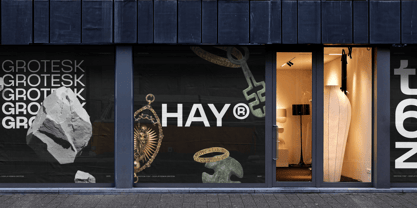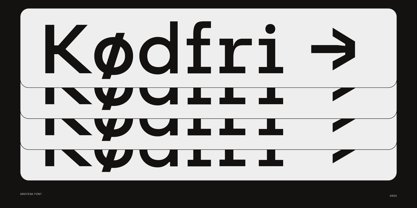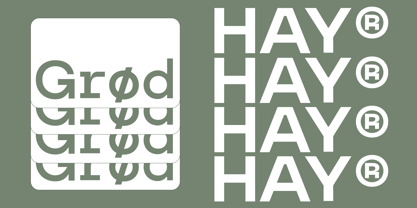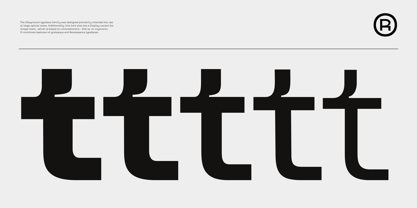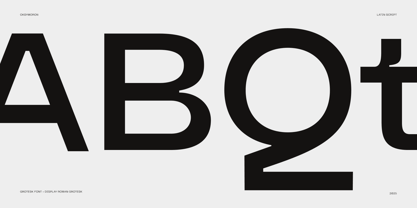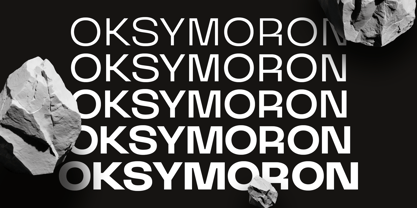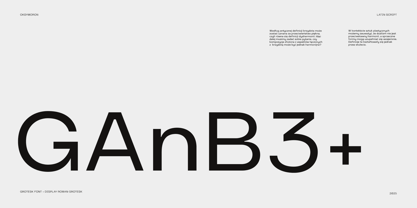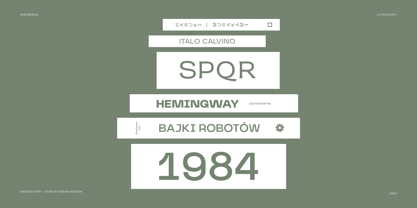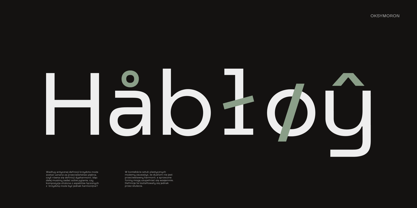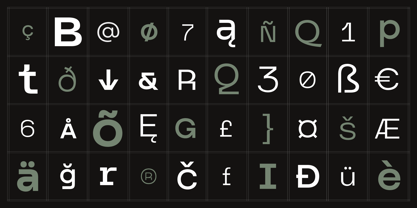
Oksymoron Grotesk
by Iwa Wolska
The Oksymoron Grotesk Font Family was designed by Iwa Wolska and published by Iwa Wolska. Oksymoron Grotesk contains 6 styles and family package options. More about this family
The Oksymoron typeface family was designed as a font with a distinctive and memorable character, primarily created for use at large optical sizes where details truly matter. In addition to the core styles, this family also includes a special Display variant, mainly for longer texts. Its concept is rooted in contradictions - an oxymoron combining qualities that may seem opposite at first glance. It merges the clean geometry of grotesque typefaces with the warmth and elegance of Renaissance letterforms, resulting in a versatile design that works equally well for bold headlines, refined titles, and expressive visual identities.
Iwa Wolska is a multidisciplinary graphic designer and lecturer from Poznań, Poland. For her, typography design is the foundation of every design. In her projects, she constantly looking for a modern use of old-fashioned designs in my projects. She has won several awards in the international Pangram competition and has led workshops at national design conferences such as Graf Conf. She completed her master's degree at the Magdalena Abakanowicz University of Arts in Poznań in the studio of design and typography.